Gallique takes its name from the oldest of the garden roses, Rosa Gallica. The duality of soft petals met with prickling thorns soaks into the design of its juxtaposing forms to create a truly expressive, experimental take on a contemporary serif. For ligatures lovers, Gallique is made to tangle and intertwine to create a stunning display of its delicate, hypnotic curves; making it the perfect choice for impactful editorial layouts and powerfully feminine creations.
Bethany includes full set of uppercase and lowercase letters, multilingual symbols, numerals, punctuation, alternates, swash and ligatures. The font has organic smooth wet ink texture with Modern Elegant Style this is perfect for branding, logos, invitation, masterheads and more.
Dottingham is a vintage style display font with a look that will take you back to the Victorian era. Inspiration for this 2 member family came from signage, publications, and old advertisements that appeared not only in Europe, but North America as well during the 19th century. Exaggerated serifs, wispy strokes, and high contrast dominate the character set. For those looking for a bit more authenticity, a distressed version is available for a straight-out-of-the-box eroded look. This unique styling makes it a strong choice when attention is paramount to your project. Dottingham is equipped with Basic Latin, Extended Latin/diacritics, kerning, ligatures, fractions, and some alternates. Use it for a Pub logo, book cover, or restaurant menu.
Trisquare is an Experimental Display Typeface, which is inspired by the strokes of the Fraktur alphabet but developed through the composition of triangular and square shapes. It has a particular ancient soul with a digital taste but is not monospaced. Trisquare is good to use for Branding, Signage, Packaging, Advertising, Headlines, Magazines, Book titles, or everything you want to use it for.
Introducing, Valery! a serif display font with a modern yet luxurious style. Aesthetic and unique letterforms, as well as soft curves are the hallmark of this font. Valery is a versatile and multigender font. Perfect for editorial projects, Logo design, Wedding, Clothing Branding, product packaging, magazine headers, or simply as a stylish text overlay to any background image.
Rewalt family is perfectly suited to headlines, logotypes, books, magazines, motion graphics, and use on the web and TV. Rewalt is an OpenType font family that converts any text – including the most complex layouts – into an expressive design. This font is a modern rounded sans serif typeface that can be used as a headline or as a body copy typeface.
Introducing a vintage font Simply Royal. This typeface has a victorian medieval look. It's an all caps typeface with decorative classic style. Simply royal has three layer fonts for more conenient recoloring.
Corpus Typewriter is an authentic typewriter font, sampled from a real vintage typewriter. Each letter and number has three alternative characters, giving you a large variety of options to get an authentic, vintage look.
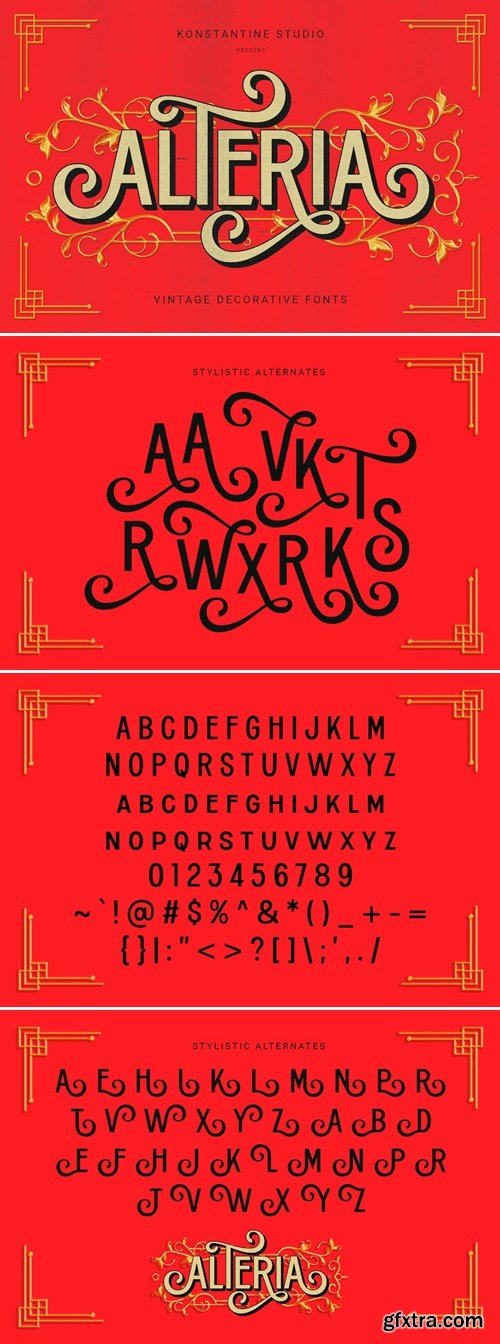
Alteria - Vintage Ornamental Fonts
Alteria is a vintage decorative font. It was inspired by the trend of the victorian era, prints headline, retro signs, newsletters, and advertising back in the 50s. Perfectly fit for a logo, branding, signage, decor, books, cover, badges and emblems, clothing, apparel, merchandise, movie title, serials, and many more.
Garmot - Modern Geometric Font
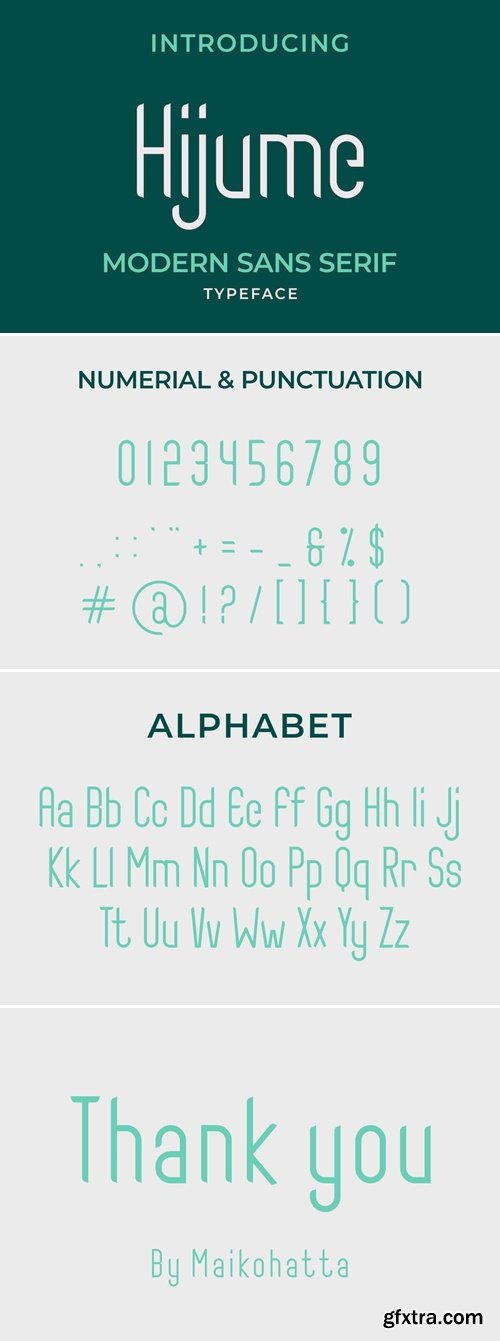
Hijume Font
Hijume Font - Modern Font is a bold and authentic display font. The font is suitable for any branding project like logo, t-shirt printing, and many more. outstanding in a wide range of contexts.